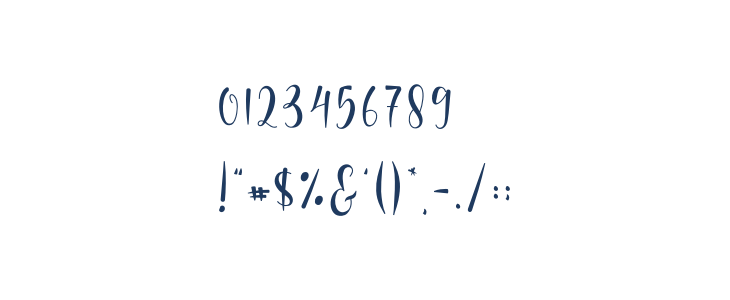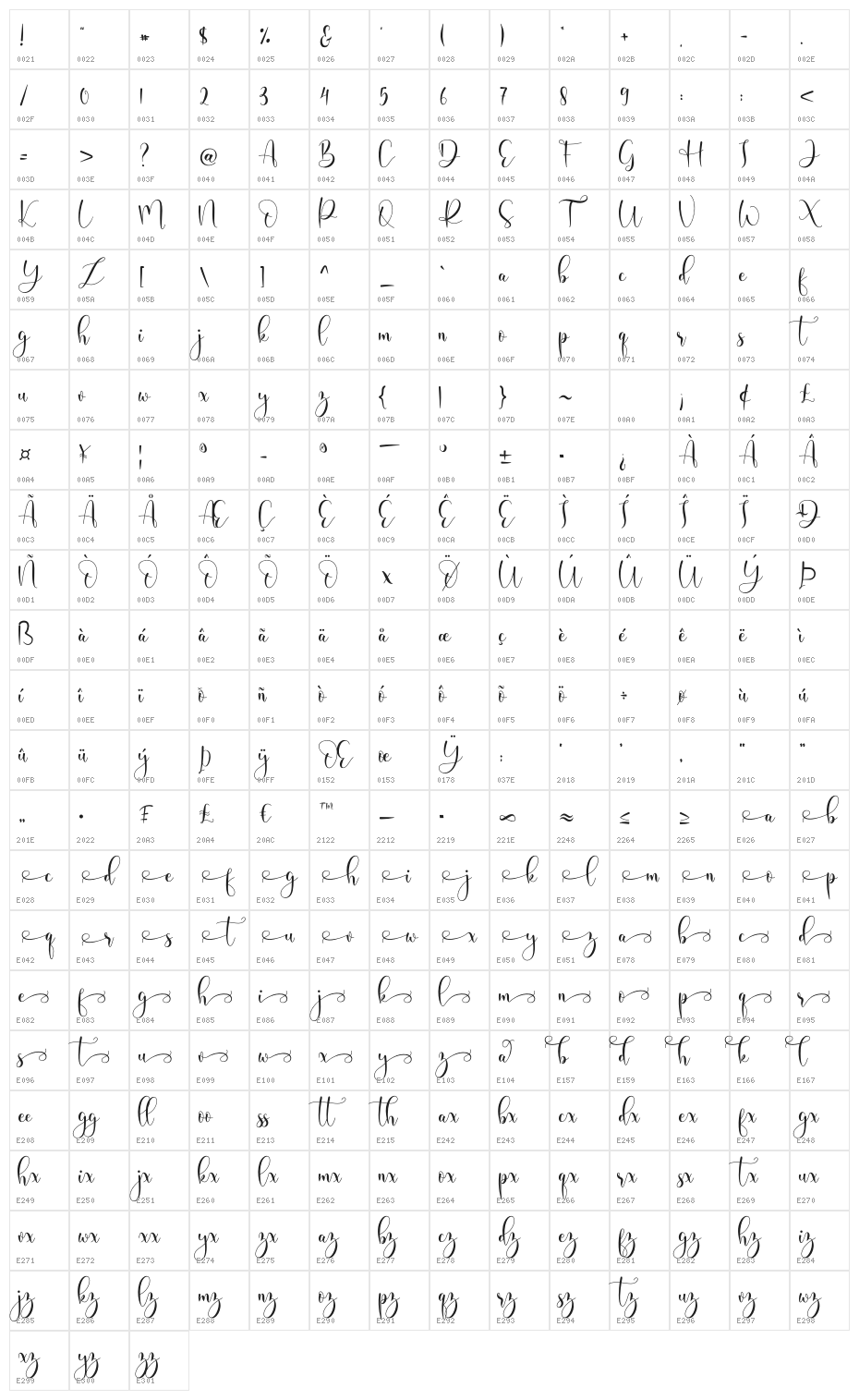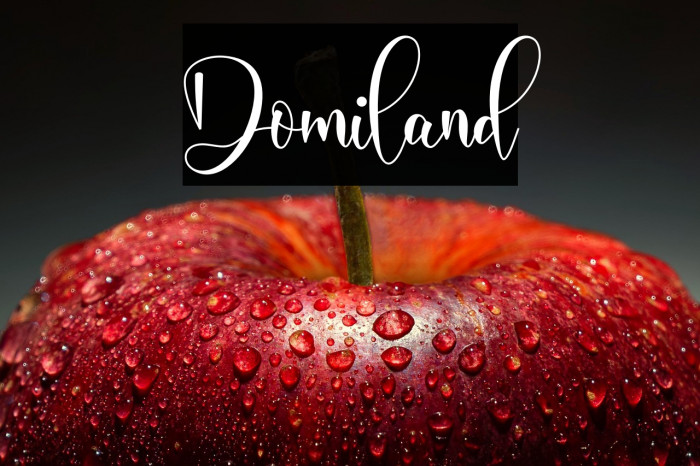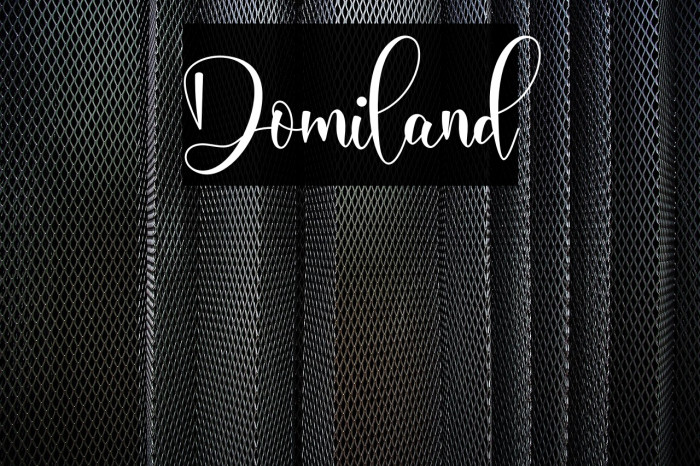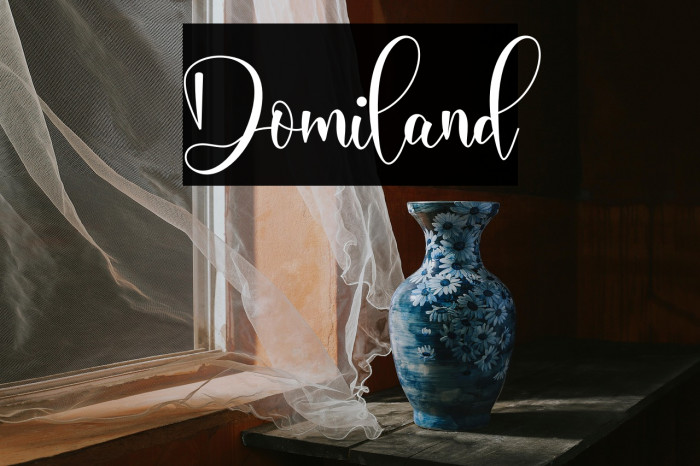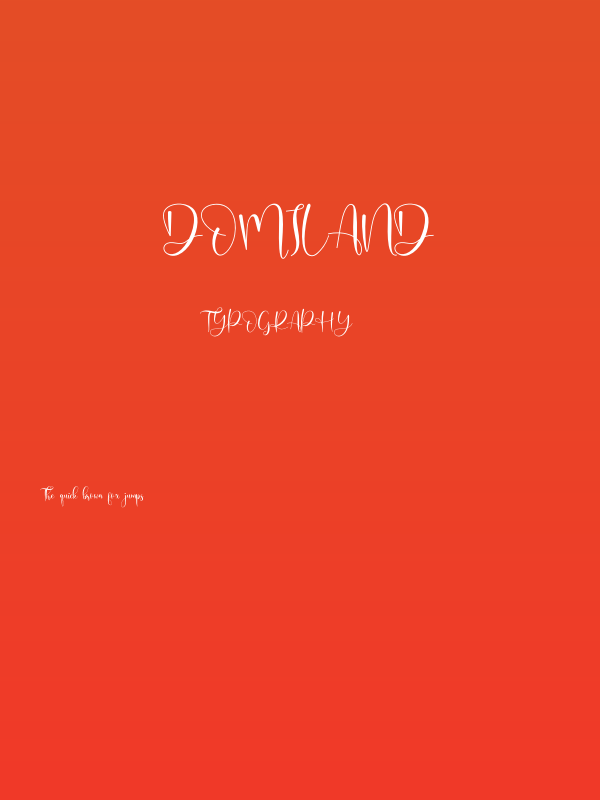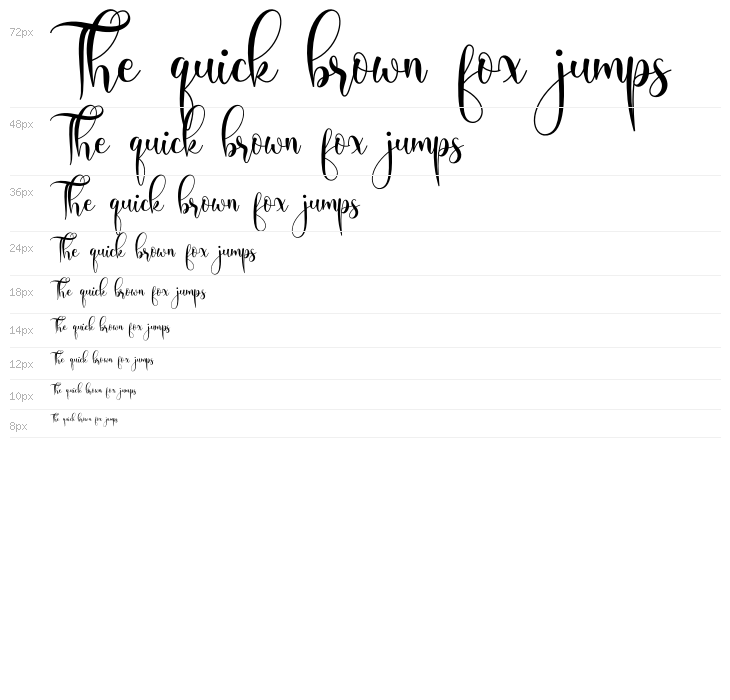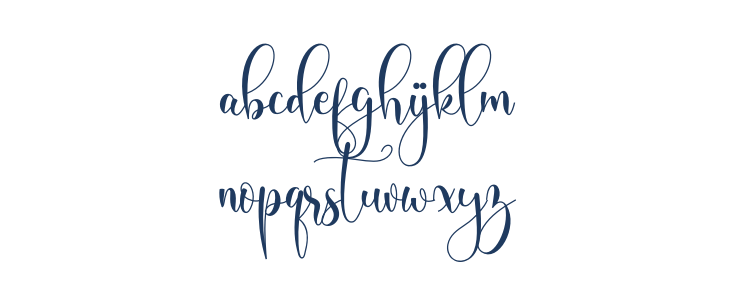
Domiland Font
Domiland Description
This font features an elegant, flowing script style with a modern touch. The uppercase letters are characterized by their tall, slender forms and graceful loops, giving them a sophisticated appearance. The lowercase letters maintain a consistent flow, with some characters featuring unique swashes that add a decorative flair. The numerals are stylish and maintain the overall script aesthetic, while the special characters blend seamlessly with the rest of the set. This font's design is both artistic and readable, making it suitable for a variety of creative applications.
| Use Case | Logos, Invitations, Decorative text |
| Proposed Projects | Ideal for wedding invitations, branding, greeting cards, and elegant packaging designs. |